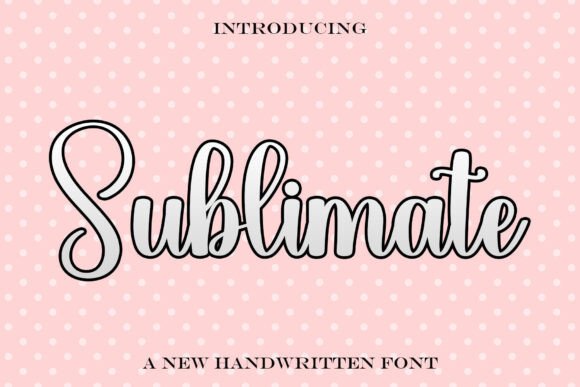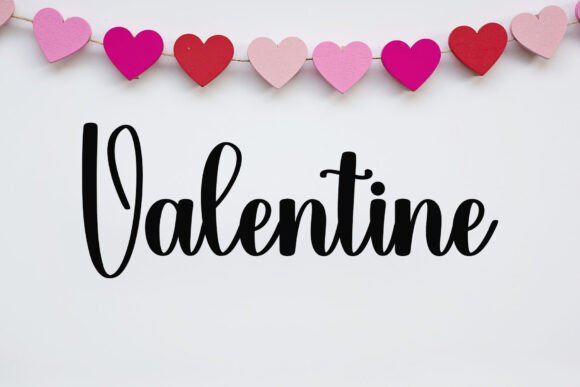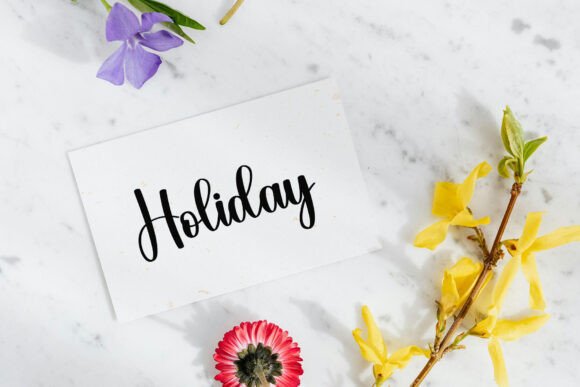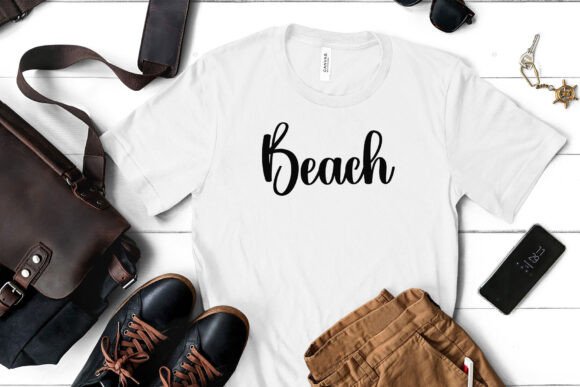
Sublimate Font: Sweet Handwritten Script for Wedding & Branding Designs
About the Sublimate Font
Welcome to the world of Sublimate Font, a typeface that will inspire your next great project. Sublimate is a sweet and cursive handwritten font. This gentle font will look gorgeous on a variety of design ideas. It will add a joyful and romantic touch to each of your projects! Perfectly fit for branding, logo, wedding things, greeting cards, fashion, lookbook, marketing promotion, and any time you want your design to look fancy and elegant but still casual.
Sublimate Font Usage Examples
Sublimate Font Example